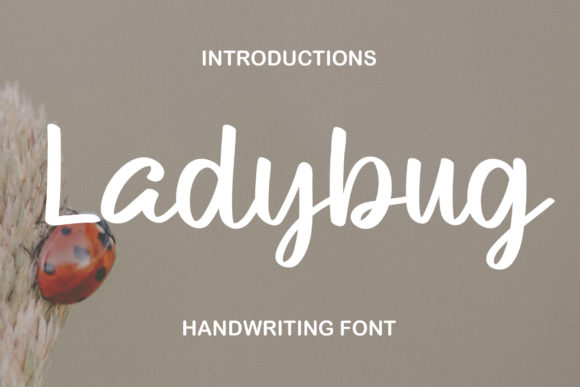
**Ladybug Font: Relaxed and Paint-Brushed Handwritten Charm**
Introducing *Ladybug Font*, a relaxed and paint-brushed handwritten typeface that effortlessly combines simplicity with a strong visual impact. This font is designed to instantly elevate your creations, adding a unique charm that makes them more appealing than ever.
The allure of *Ladybug* lies in its relaxed and paint-brushed aesthetic. The handwritten charm brings a casual and approachable vibe, making it ideal for a variety of design projects. Whether you’re creating posters, social media graphics, or any visual content, *Ladybug* adds a touch of simplicity with a powerful visual effect.
The strength of *Ladybug* is its ability to make an instant impact. The paint-brushed strokes contribute to the font’s uniqueness, creating a distinctive look that stands out. This simplicity with a visual punch makes it a versatile choice for a wide range of applications.
Incorporating *Ladybug* into your designs brings a fresh and appealing quality. The relaxed nature of the font adds a sense of ease, making it suitable for projects that require a laid-back yet visually striking approach.
This font is more than just letters on a page; it’s about creating an instant connection with your audience. Whether used for branding, promotional materials, or any creative project, *Ladybug* becomes a key element in making your creations memorable.
In summary, *Ladybug Font* is a relaxed and paint-brushed handwritten charm that enhances the appeal of your designs. Let it be the font that adds simplicity with a strong visual effect to your creations, making them stand out effortlessly in any context.